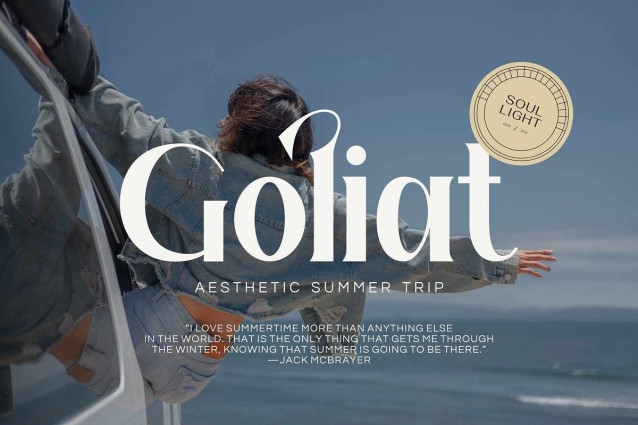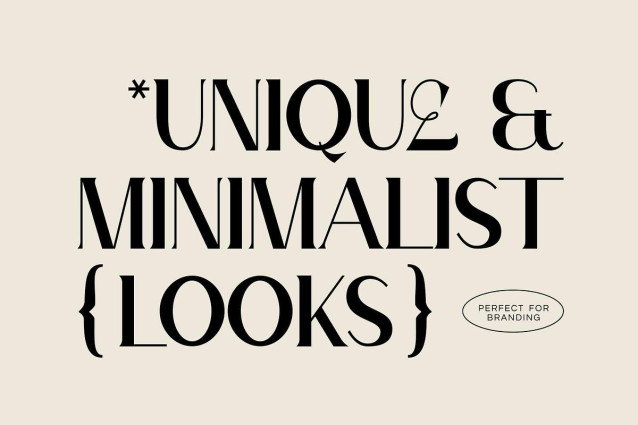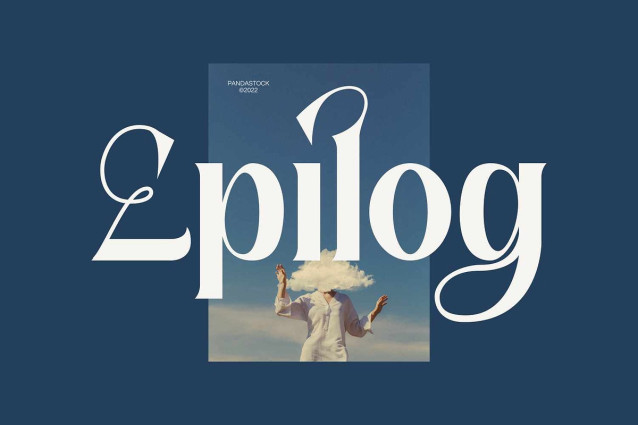
Epilog Font
Epilog Font – Modern Serif! This font isn’t just about style, it’s about making your designs radiate luxury and elegance. Letters that seem to dance and twist harmoniously together create a unique visual rhythm, perfect for sophisticated and memorable typography. Epilog is your go to for crafting striking headlines, captivating posters, premium packaging, polished magazine headings, refined advertising, and stunning websites.
With its balance of modern minimalism and distinctive character alternates, Epilog adapts effortlessly to any creative vision.
Bring timeless sophistication to your work. Grab this font and watch your designs rise to the next level of style and impact.